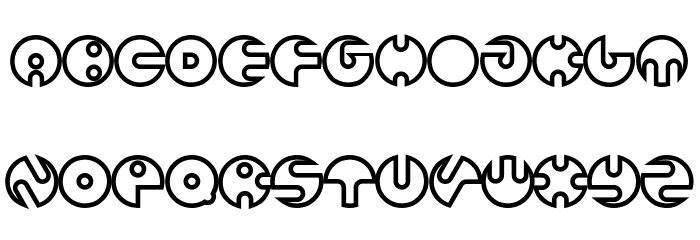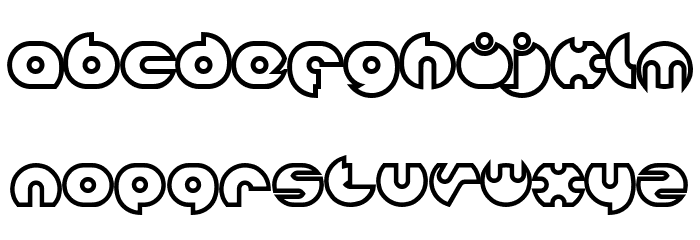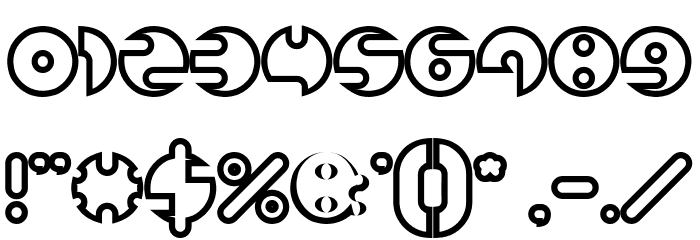
MILLION-Hollow Font
This font features a unique hollow design with a futuristic and geometric aesthetic. Each character is crafted with bold outlines and circular cutouts, creating a striking visual effect. The uppercase and lowercase letters maintain a consistent style, with rounded edges and symmetrical shapes. Numbers and special characters follow the same design principles, ensuring uniformity across all elements. The font's distinct appearance makes it ideal for creative projects that require a modern and eye-catching typeface.
A futuristic, geometric hollow font with bold outlines and circular cutouts.
- Proposed Projects: Ideal for sci-fi themed designs, modern branding, digital art, and innovative advertising campaigns.